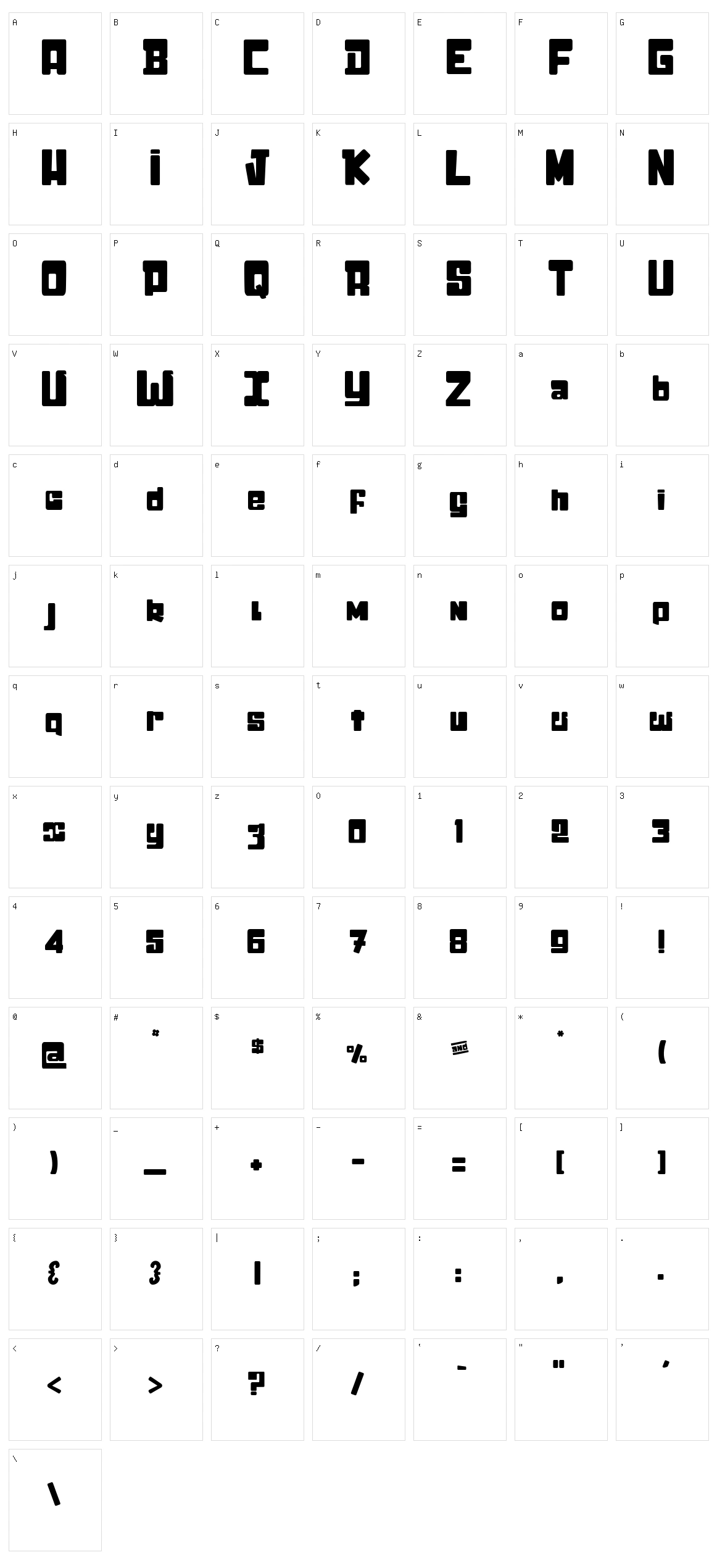
The free font Stick & Kick is carefully designed by dcoxy - Greg Medina, showcasing a thoughtful balance of creativity and usability and falls under the Cartoon font style. When you download the ZIP file, it contains only 32 KB of font files, making it lightweight and quick to download. Please review the license details below to understand permitted usage and distribution rights. If license information is not available, we recommend using this font for personal projects only or contacting the author directly for commercial usage permissions.